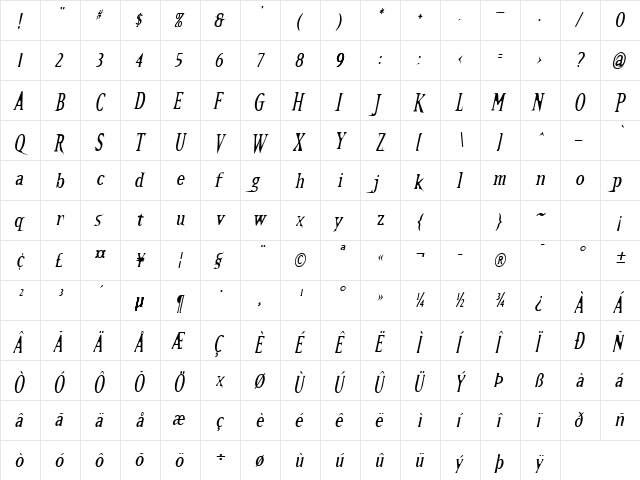
Kallamar Italic
Design Context for Kallamar Typeface
Kallamar is a composed and adaptable typeface that performs quietly and consistently across a wide range of design contexts. Its italic angle brings a sense of urgency and motion to the letterforms.
Pro Tip: Try Kallamar for annotation and caption copy alongside an upright companion — the contrast in angle creates a dynamic but ordered typographic system.